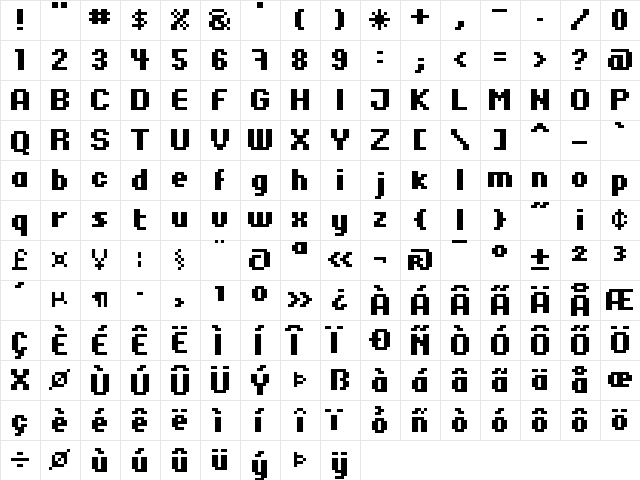
xpdr06 Regular Font Preview
xpdr06 Regular
Design Context for xpdr06 Typeface
xpdr06 offers clean, dependable letterforms without strong stylistic allegiance, making it a practical choice for designers who need flexibility.